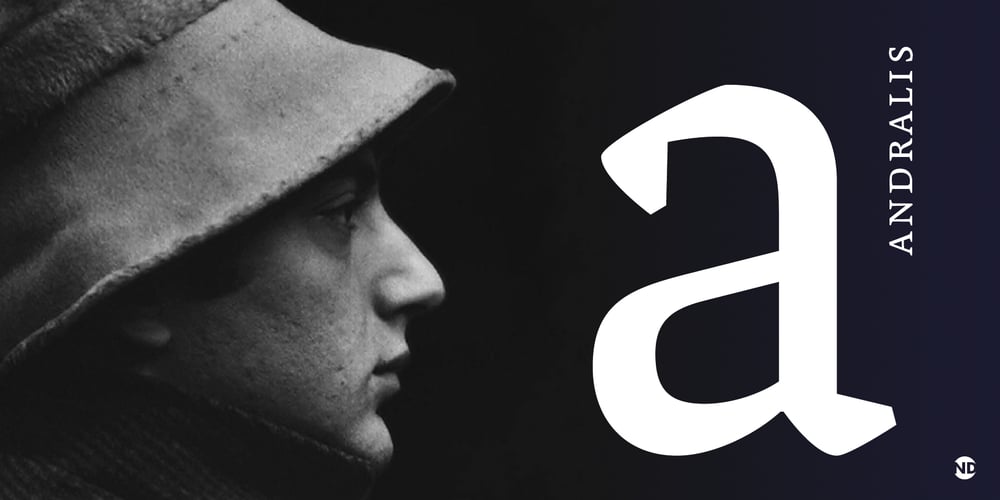
Andralis ND
Andralis ND font
Andralis ND Font Family was designed by Rubén Fontana and published by Neufville Digital. Andralis ND contains 4 styles and family package options. Andralis was designed by Ruben Fontana in tribute to the designer Juan Andralis. Its handcrafted, strong and robust appearance, maintains at the same time a friendly and human tone. It was specifically designed to perform well in long texts, also offering excellent results in headlines.Andralis is a Trademark of BauerTypes SL